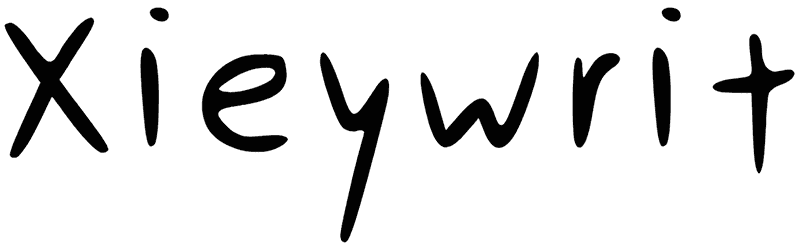
Xieywrit Font
For amazing outcomes, use the handwritten script font Xieywri. This handwritten font may give the appearance of being more informal and spontaneous despite the lack of numerical characters. Its casual look makes it ideal…
For amazing outcomes, use the handwritten script font Xieywri. This handwritten font may give the appearance of being more informal and spontaneous despite the lack of numerical characters.
Its casual look makes it ideal for advertising purposes, and it may be shown on billboards, in print publications, and elsewhere. This font is for you if you desire a strong sense of accomplishment and want to make an impression. This and every other RB font file is now free to download.